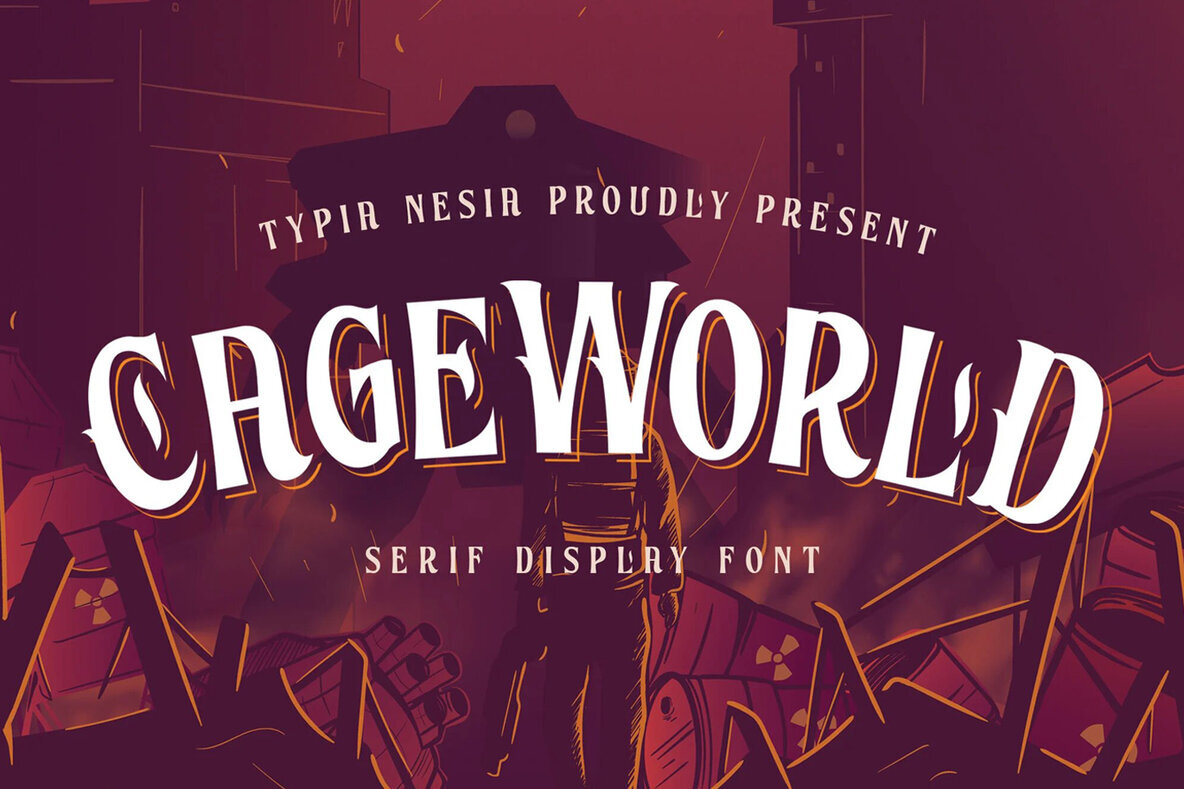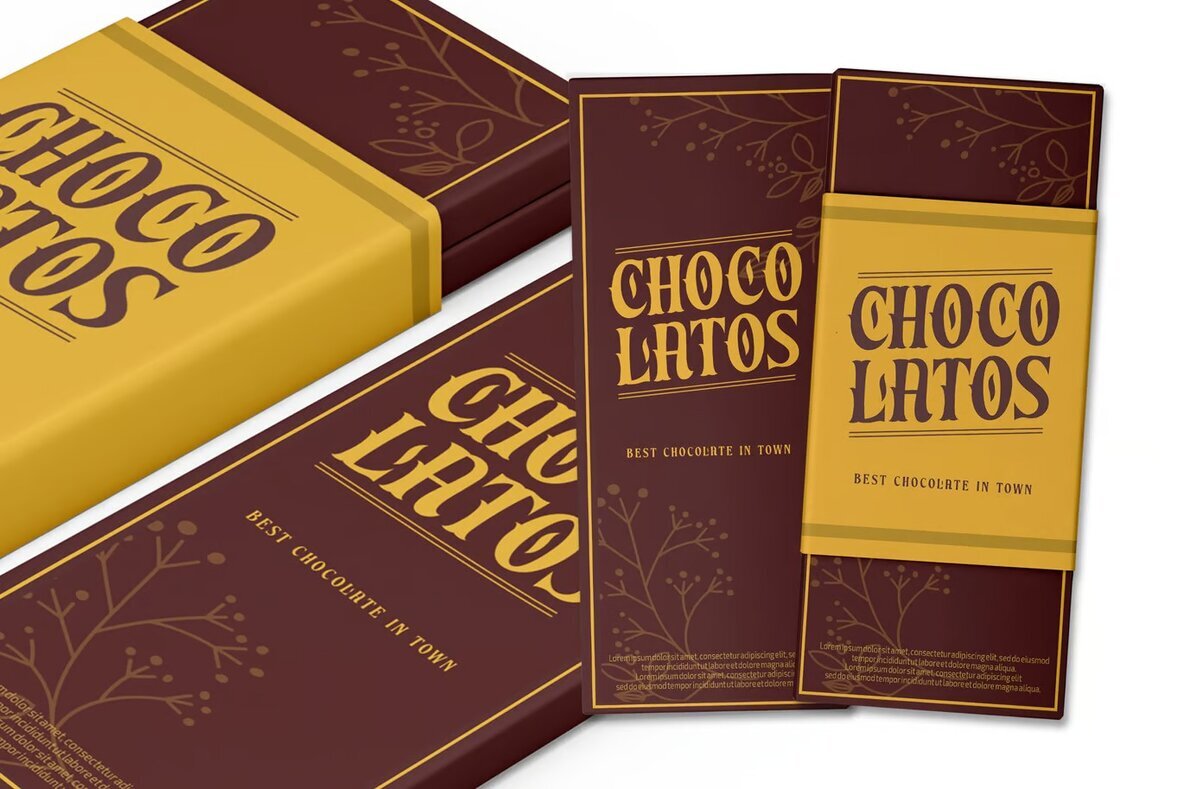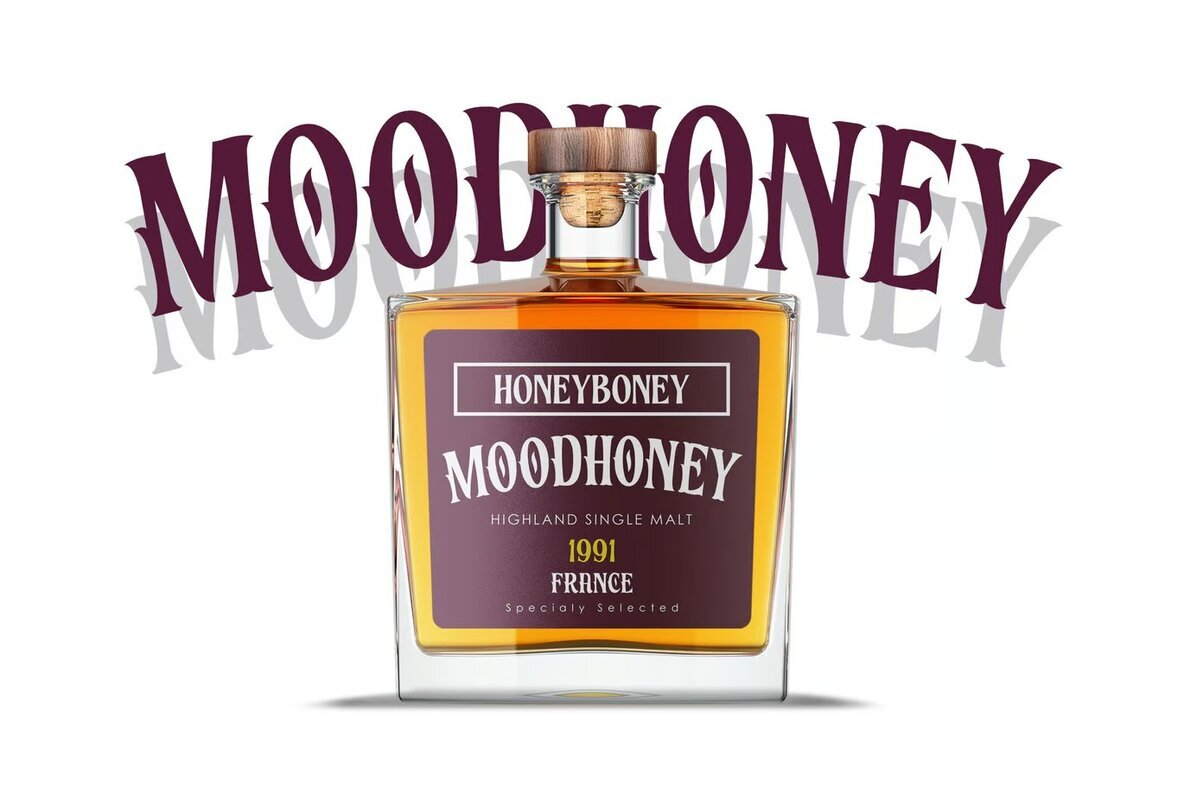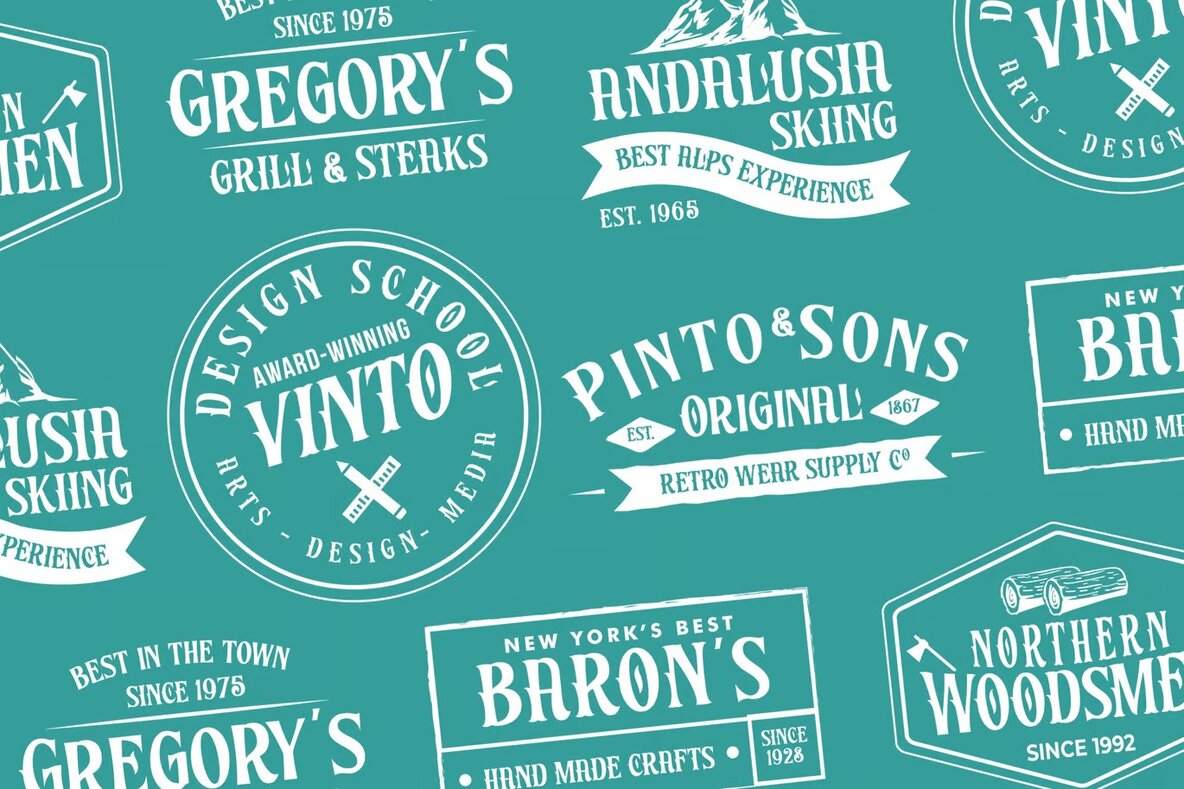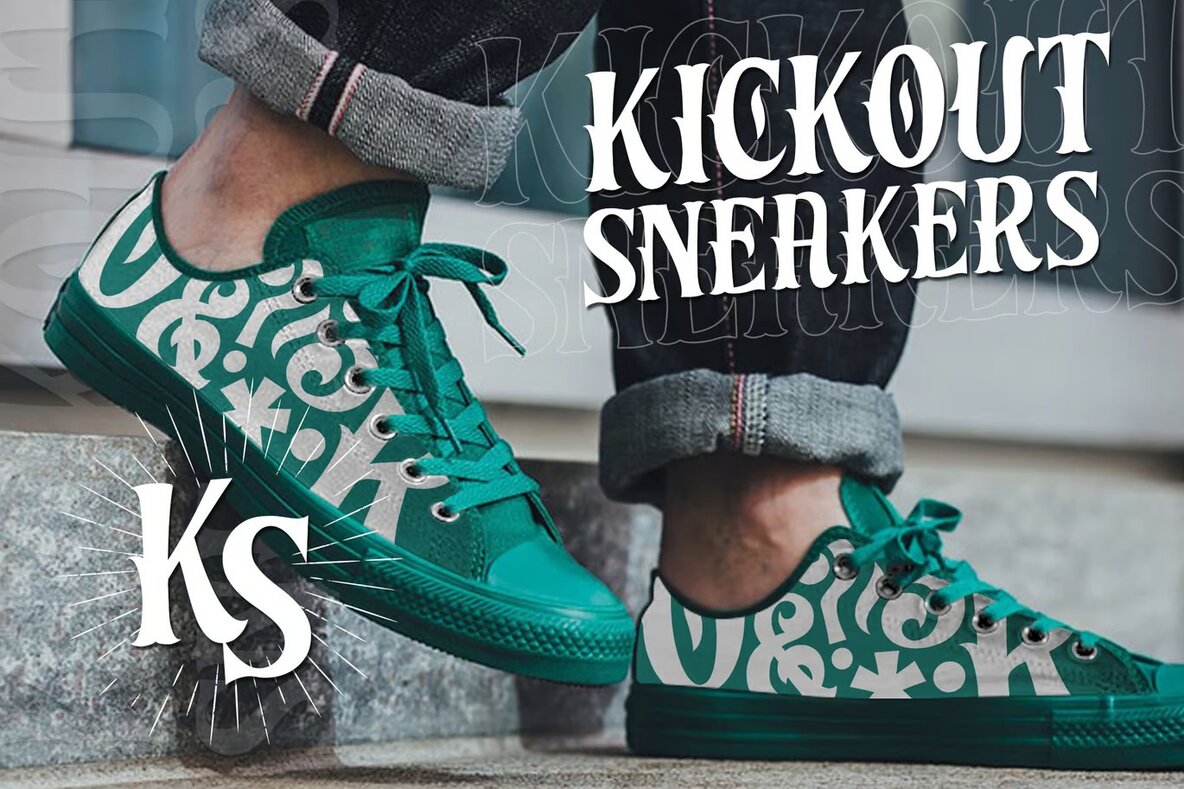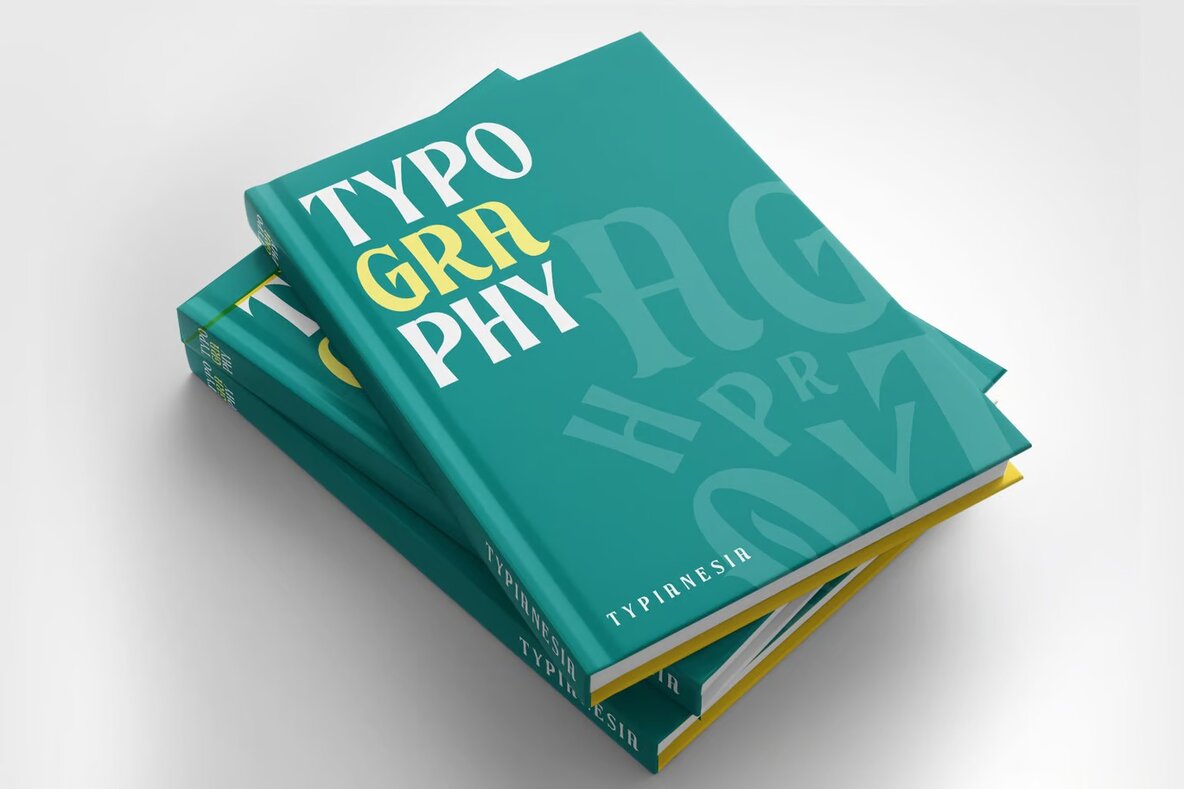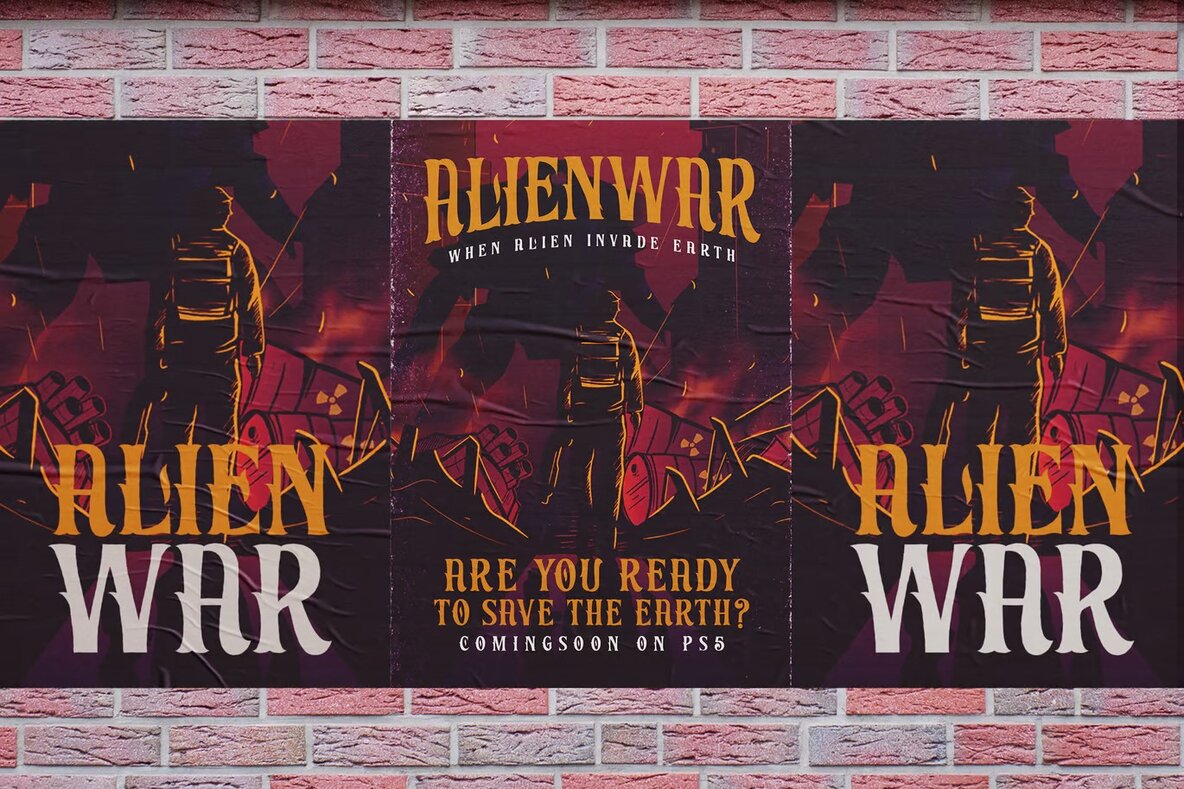
Cageworld Font
Cageworld Regular
CageWorld is a meticulously crafted vintage display serif font designed for versatility across various applications. Ideal for lettering, logotypes, labels, t-shirts, product packaging, invitations, advertising, and other classic or vintage typography projects, this font offers a timeless aesthetic that enhances the visual appeal of your designs.
The font includes both upper and lowercase standard characters, punctuation, numerals, and a variety of glyphs with OpenType features like Stylistic Alternate. CageWorld ensures ease of use with PUA encoded characters, meaning full accessibility even without advanced design software. Additionally, it supports a wide range of multilingual characters, making it a practical choice for international projects.